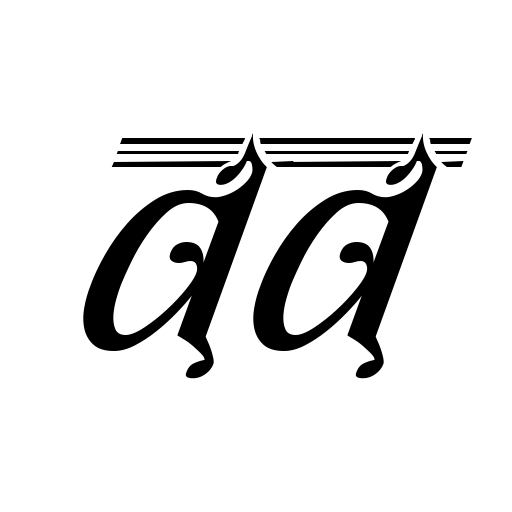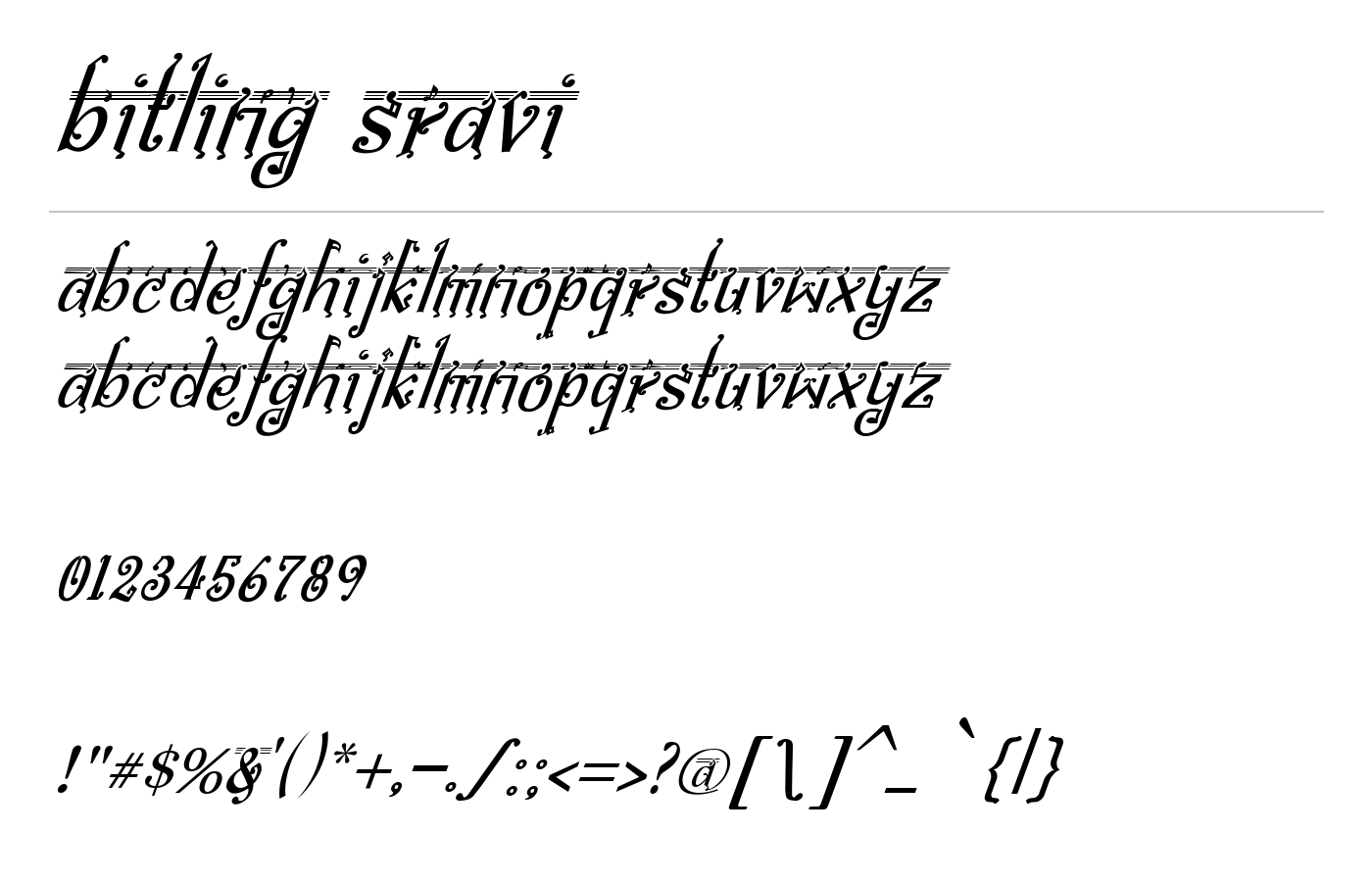
Bitling Sravi is a stylish serif font with a unique calligraphic flair, featuring slender, slightly condensed letterforms and elegant high contrast between thick and thin strokes. Its italicized design with distinct, flowing serifs and single-story letter shapes lends a sophisticated, dynamic feel, making it ideal for creative headlines, invitations, or branding that seeks a refined yet artistic touch. This font works best where personality and elegance are key, adding charm to editorial layouts, fashion logos, or expressive packaging.
bitling Sravi Font
About bitling Sravi Font